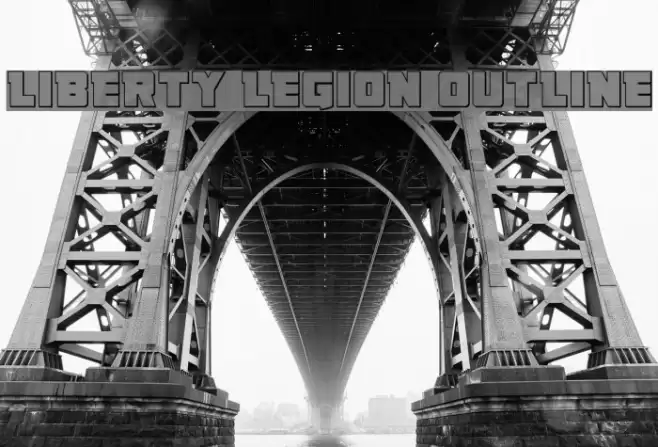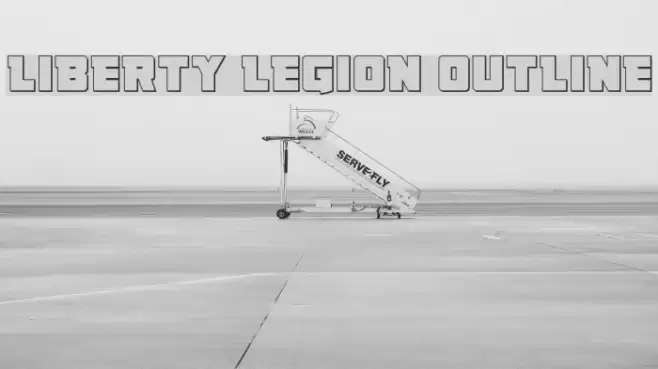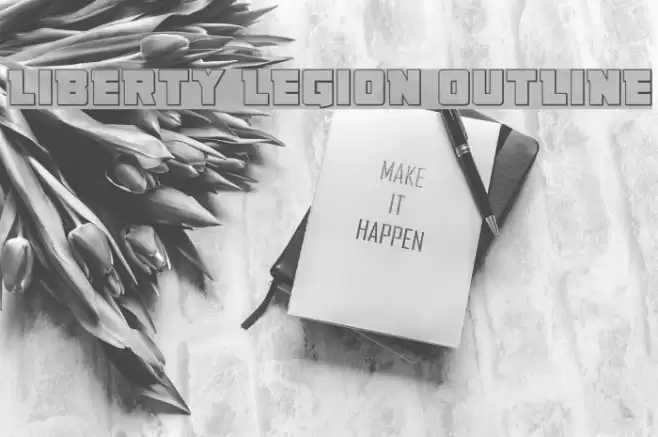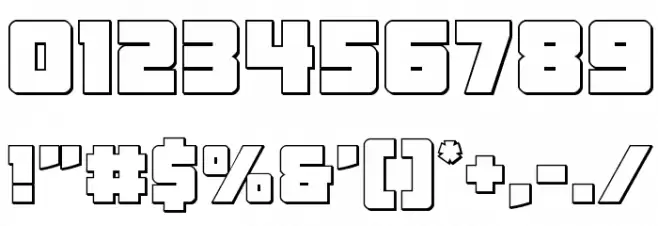
Liberty Legion Outline Font
Liberty Legion Outline Description
This font features a bold, outlined style with a strong geometric structure. Each character is designed with a thick outline that gives it a three-dimensional appearance, making it stand out prominently. The uppercase letters are uniform in height and width, creating a cohesive look across the alphabet. The numbers and special characters maintain the same bold outline, ensuring consistency throughout. This font's design is both modern and striking, ideal for making a visual impact.
A bold, outlined font with a geometric and modern style from Uncategorized fonts.
- Proposed Projects: Ideal for posters, logos, headlines, and any design requiring a strong visual impact.